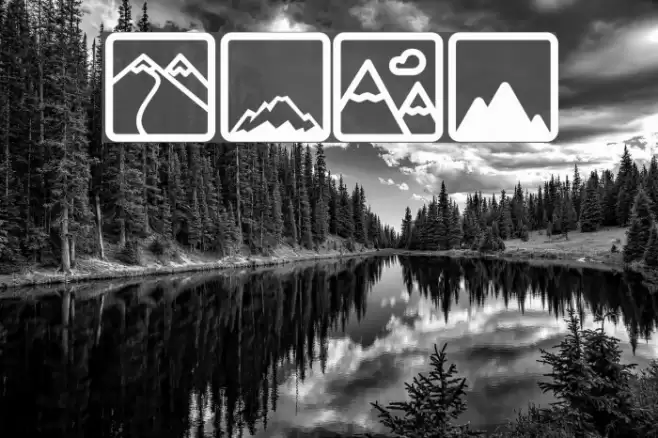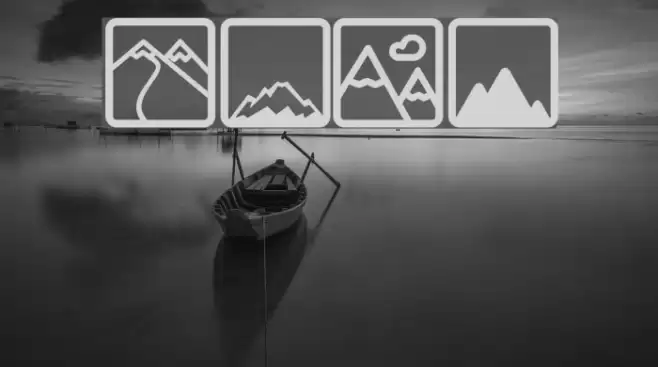
LLMountain Font
LLMountain Description
A decorative display font featuring bold, high-contrast mountain and nature-themed pictograms within square frames, using solid black and white fills with minimalistic line art. Each character is a unique icon, often depicting mountains, trees, roads, and clouds, designed for visual impact rather than text readability.
Nature-inspired icon font with bold mountain and landscape motifs from Uncategorized fonts.
- Proposed Projects: Outdoor branding, adventure event posters, travel brochures, logo design, signage, environmental campaigns.
- Overall Style: Decorative, Modern, Minimalist
- Use Case: Logos, Posters, Signage, Themed Graphics